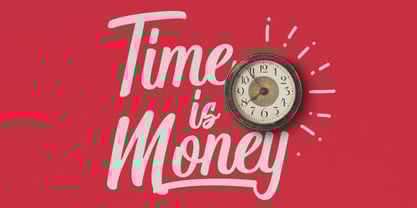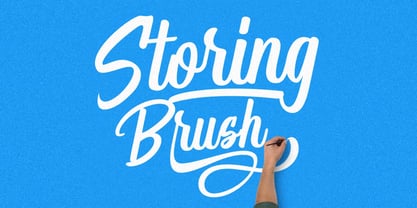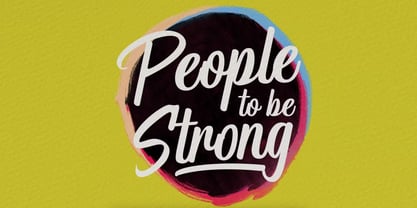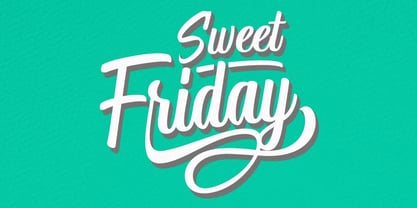
Storing
by Maghrib Type
The Storing Font Family was designed by Rizky Setyaludin and published by Maghrib Type. Storing contains 1 styles.
Storing Brush is a bold and energetic brush script font designed to bring a natural hand-painted feel to your creative projects. With smooth curves, dynamic strokes, and an authentic handwritten flow, this font captures the essence of casual lettering with a modern twist. Perfect for branding, logos, packaging, posters, quotes, social media graphics, and advertising, Storing Brush gives your design a friendly yet impactful personality. Its clean readability and stylish brush details make it versatile for both digital and print projects. Whether you want to highlight an inspirational message, create eye-catching headlines, or give your designs a handcrafted charm, Storing Brush is a perfect choice. Key Features: Authentic brush script style with smooth curves Bold and modern handwritten feel Perfect for logos, quotes, posters, and social media Works well for both digital and print designs Adds a natural, human touch to any project
Designers: Rizky Setyaludin
Publisher: Maghrib Type
Foundry: Maghrib Type
Design Owner: Maghrib Type